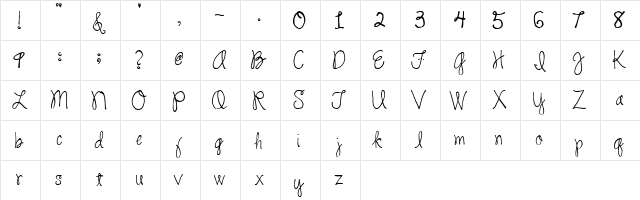
2Peas A Little Loopy Regular
2Peas A Little Loopy is a composed and adaptable typeface that performs quietly and consistently across a wide range of design contexts.